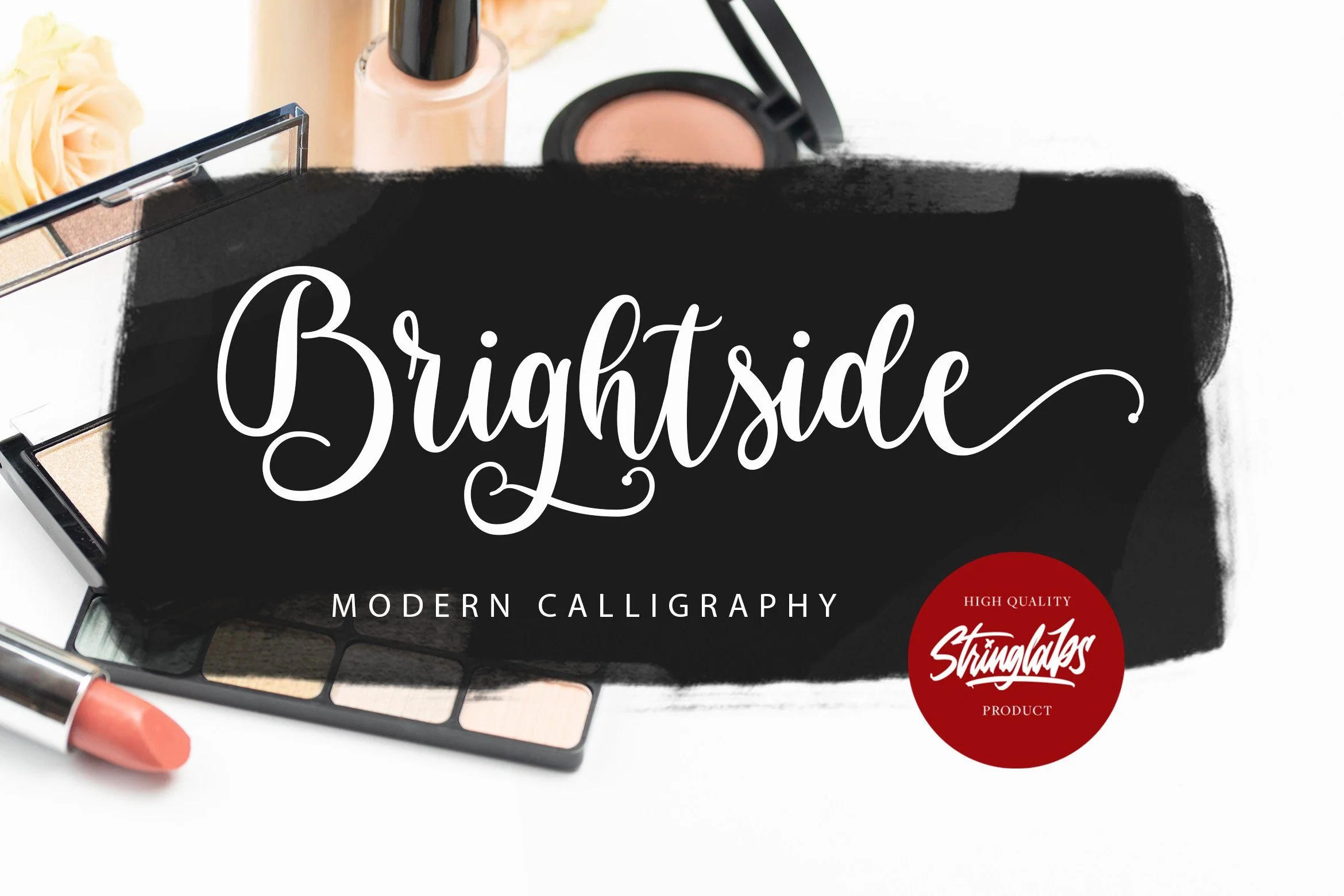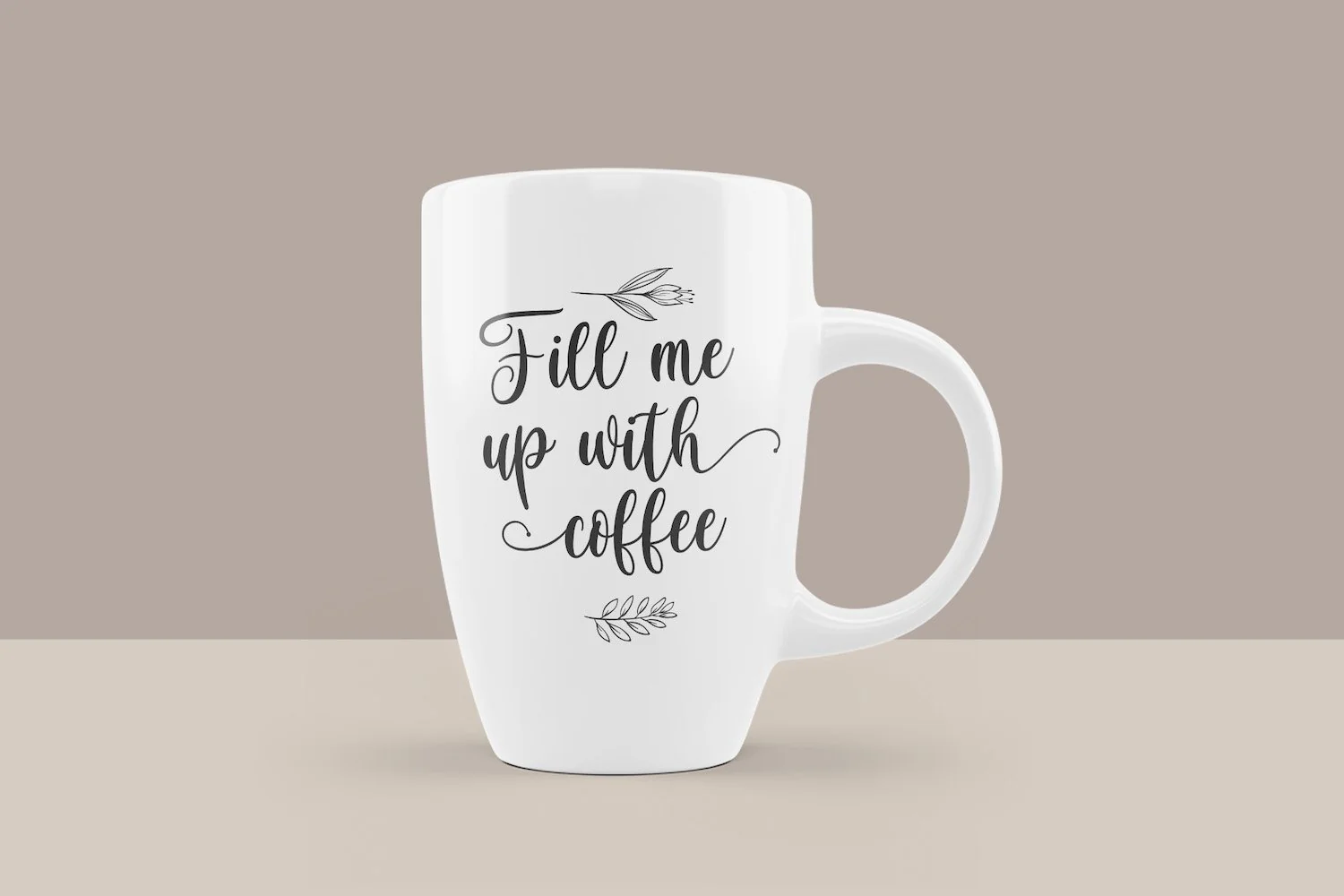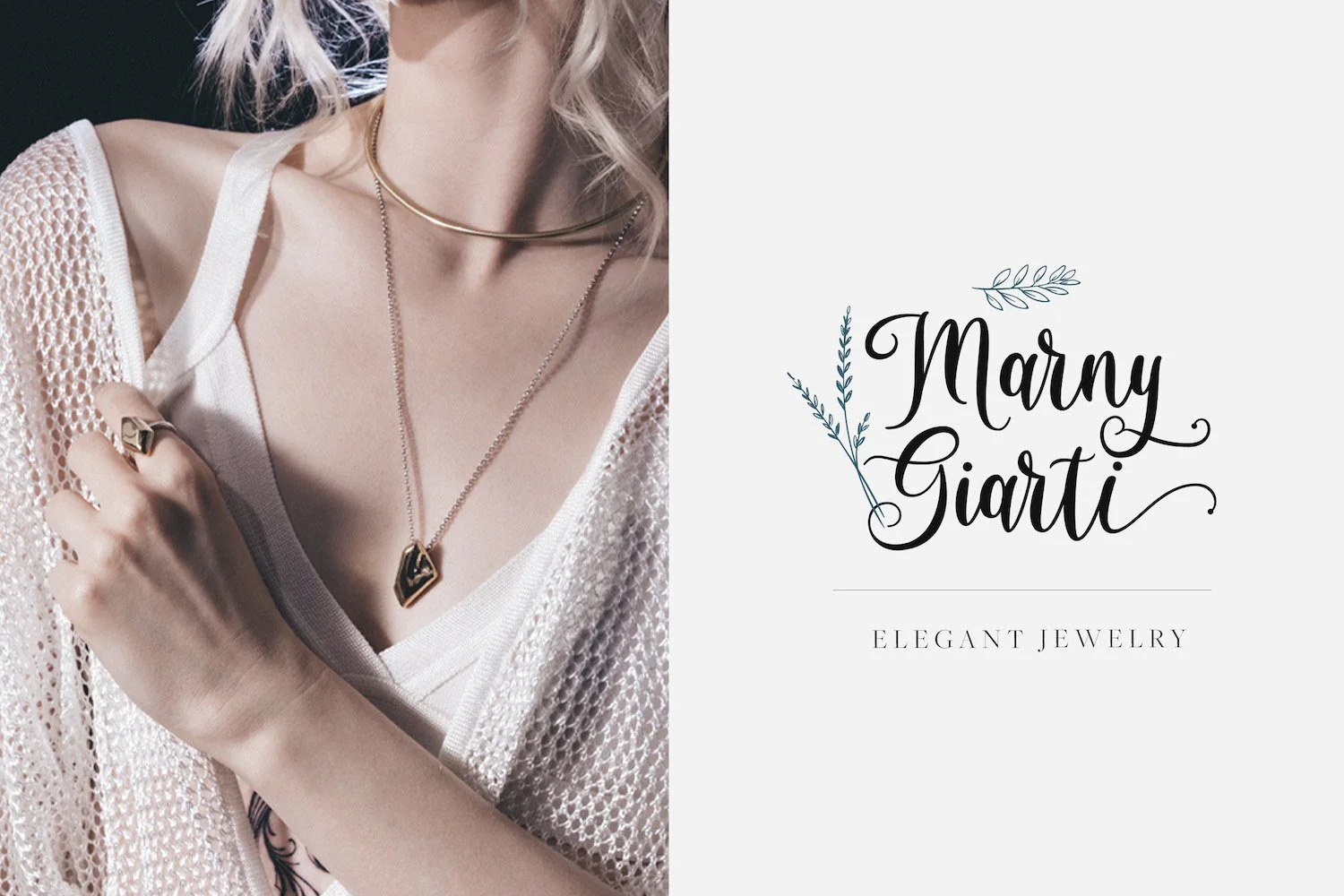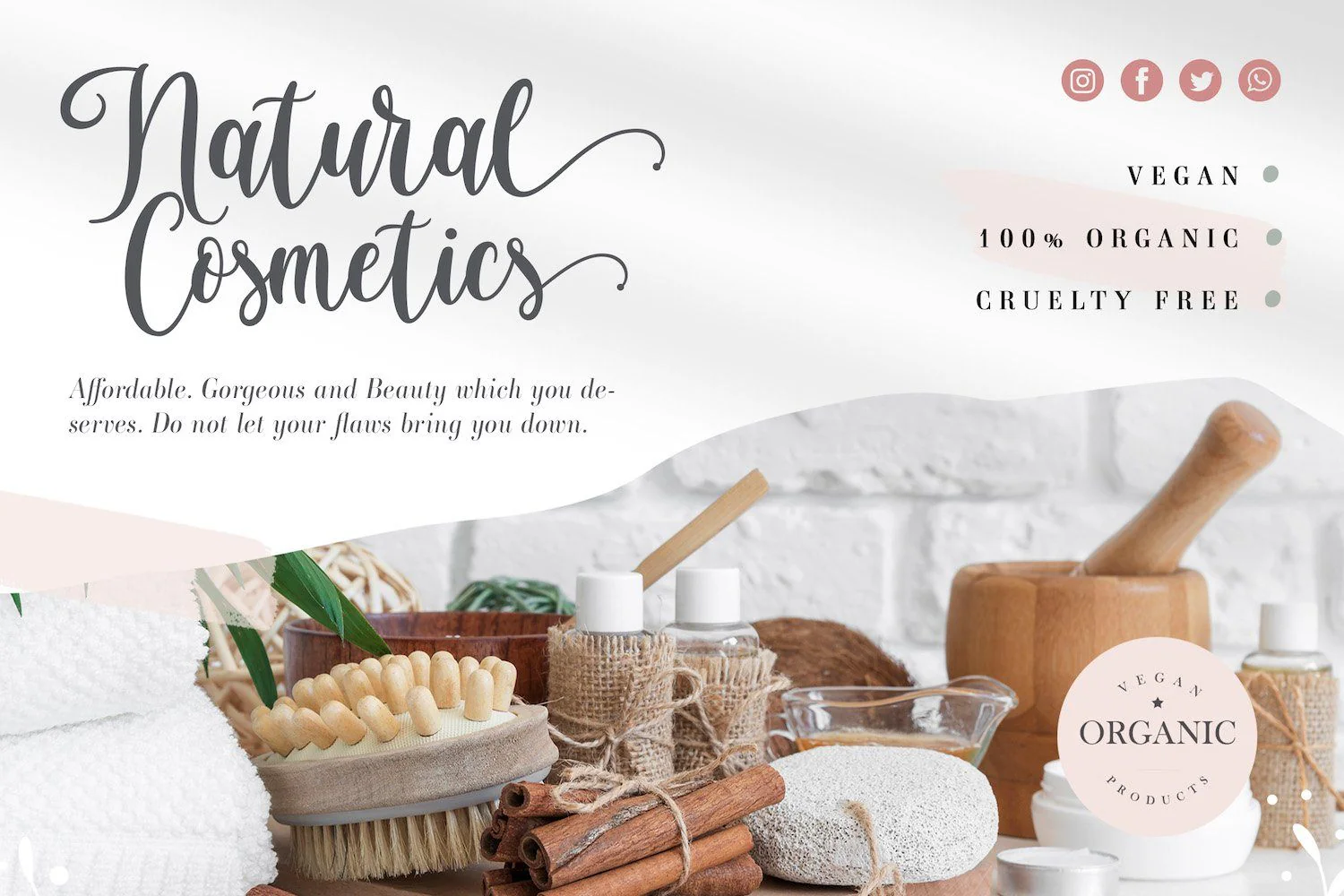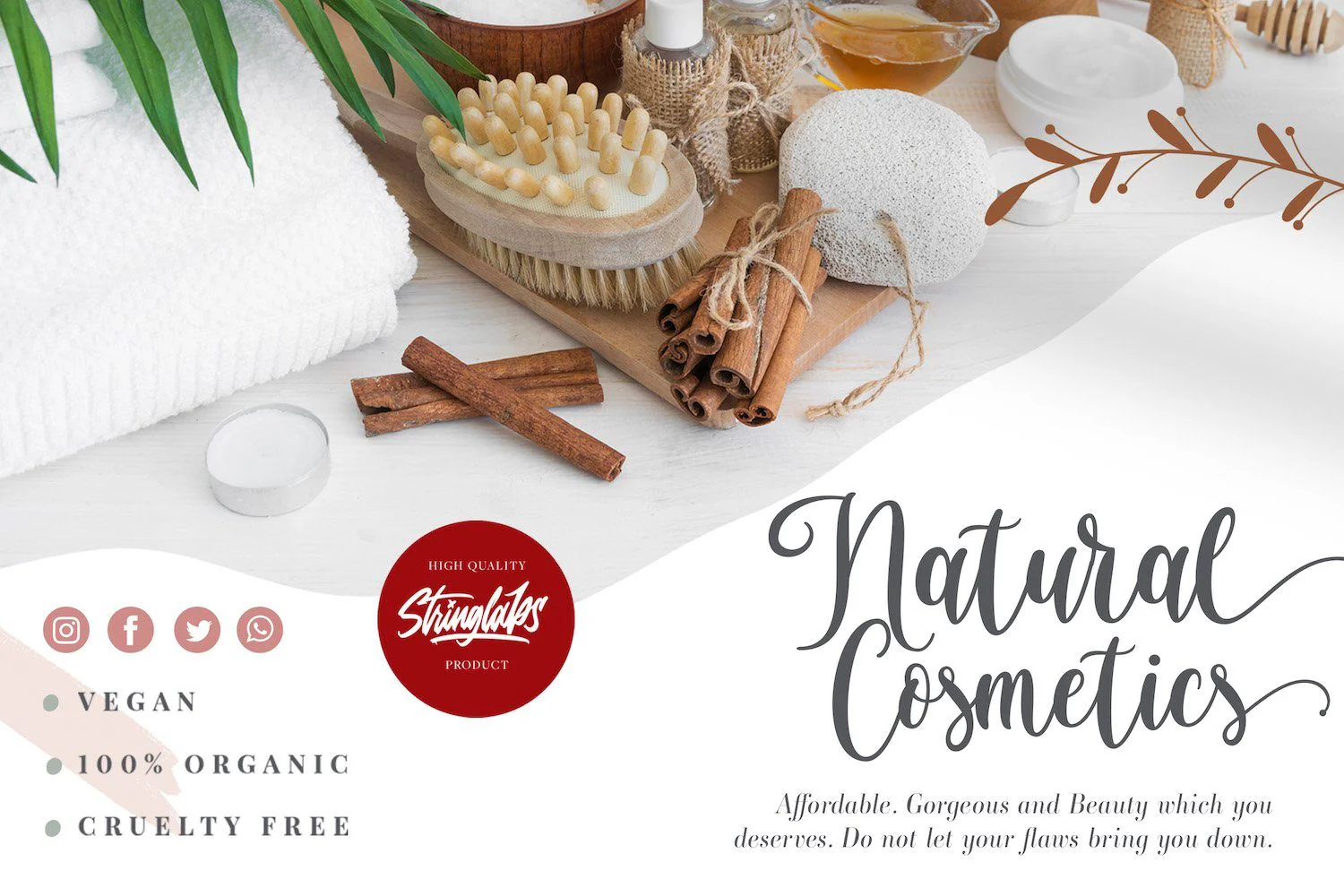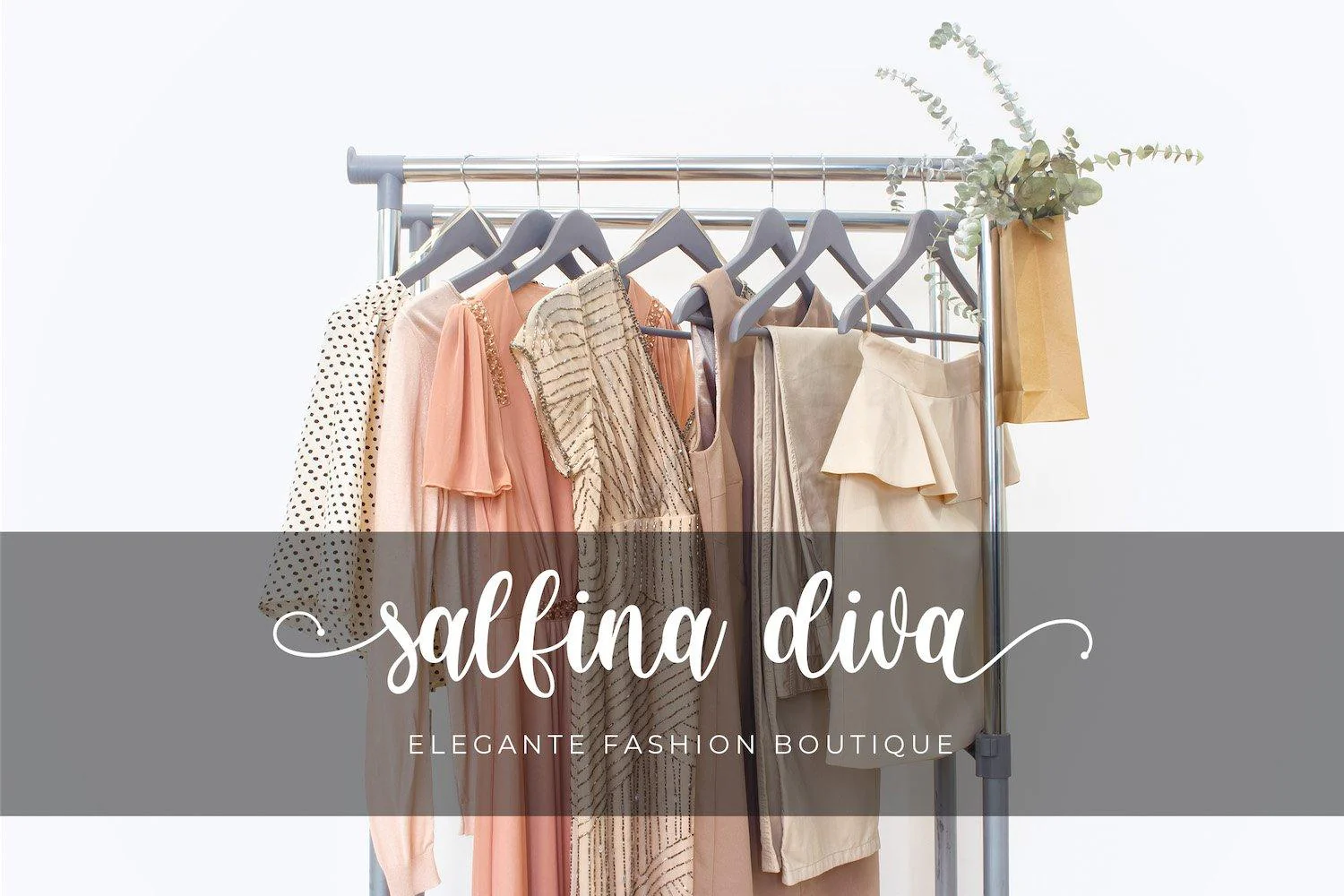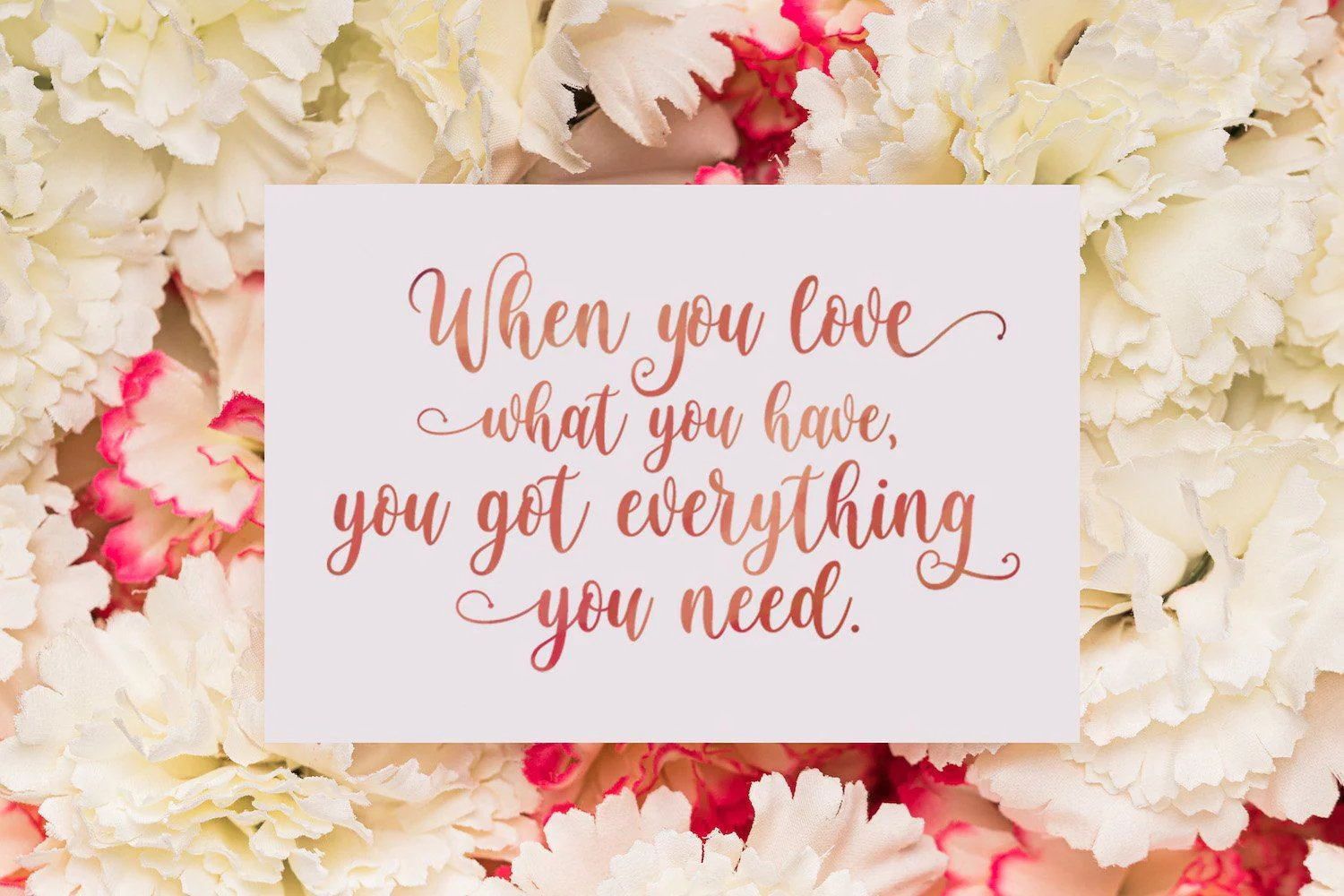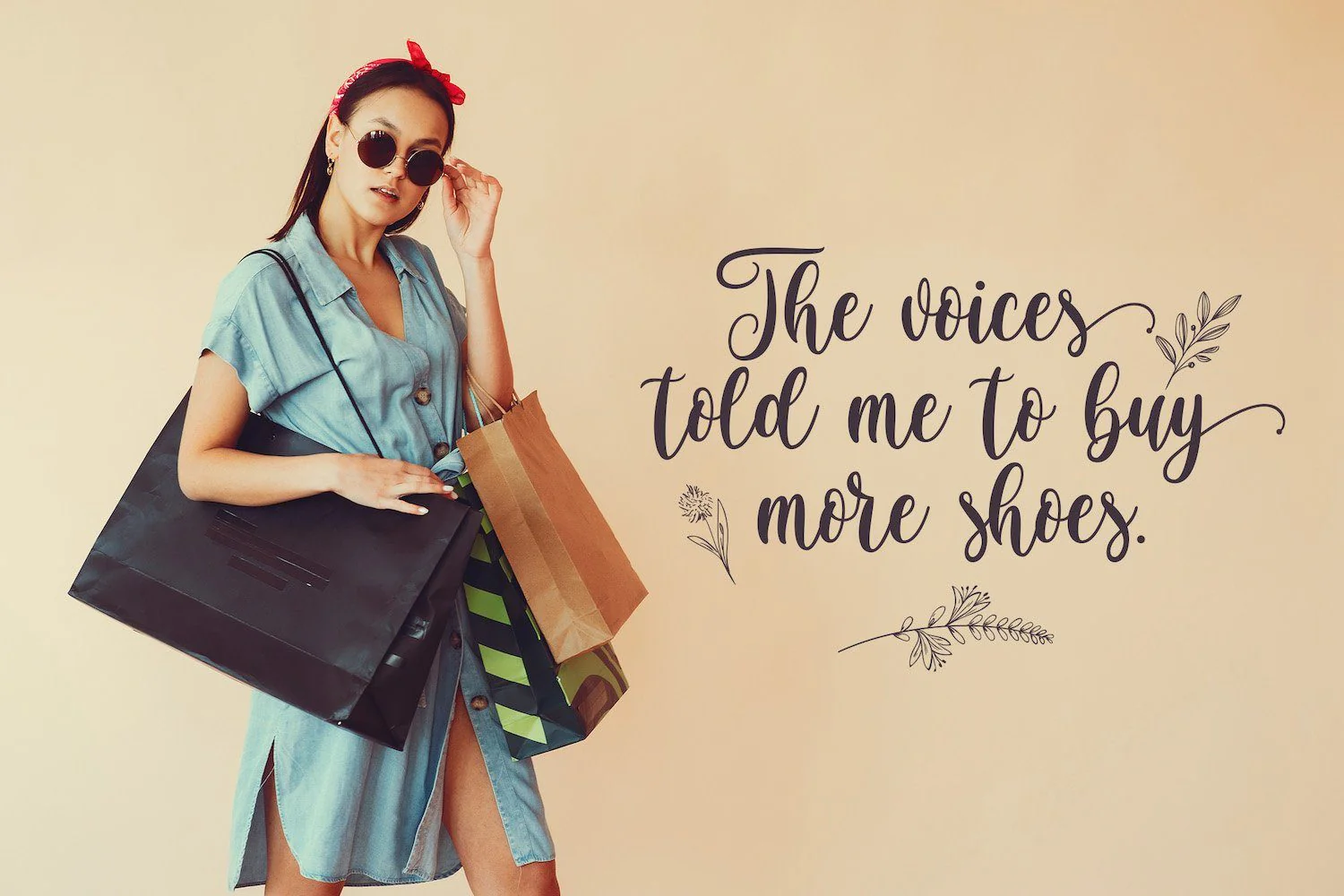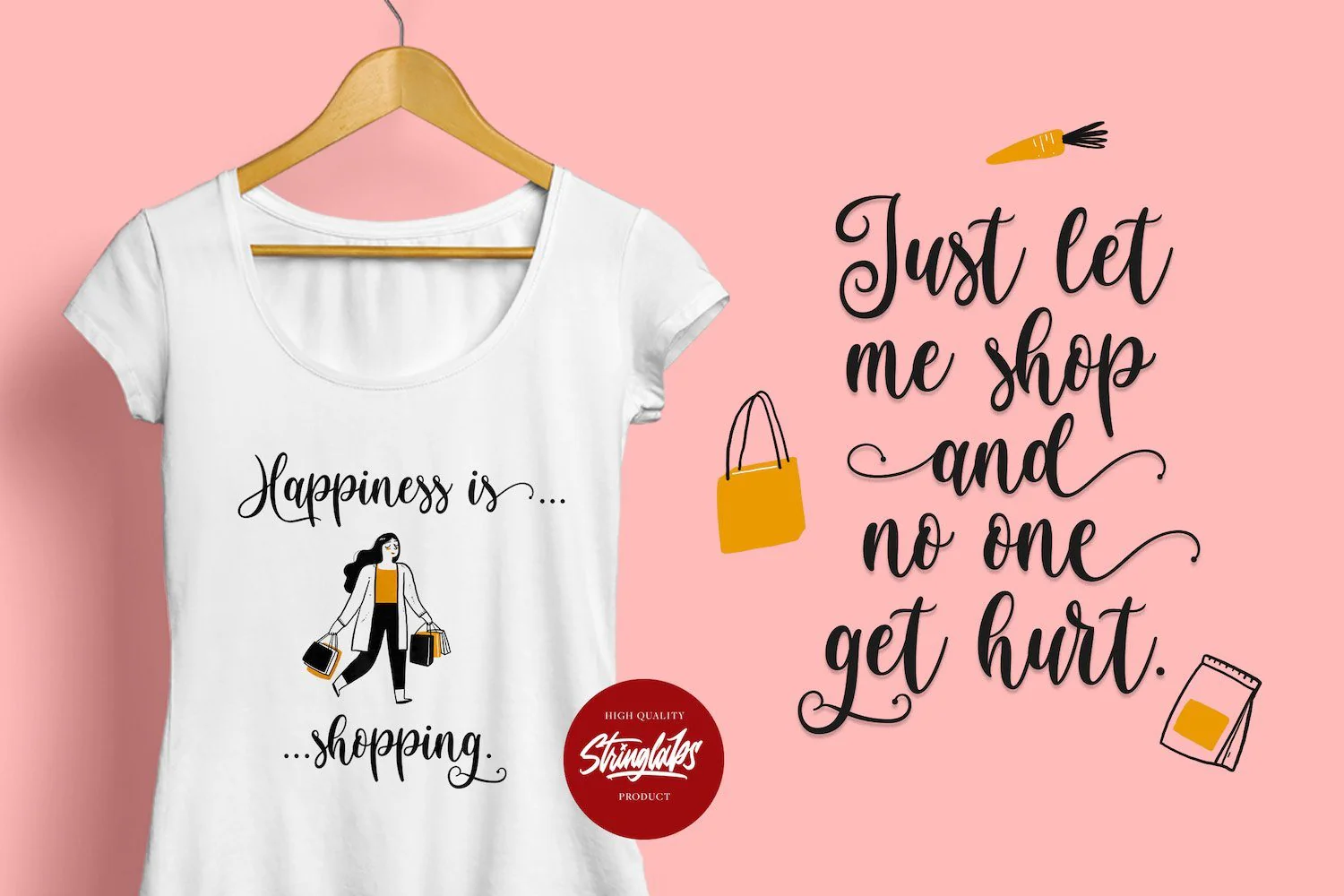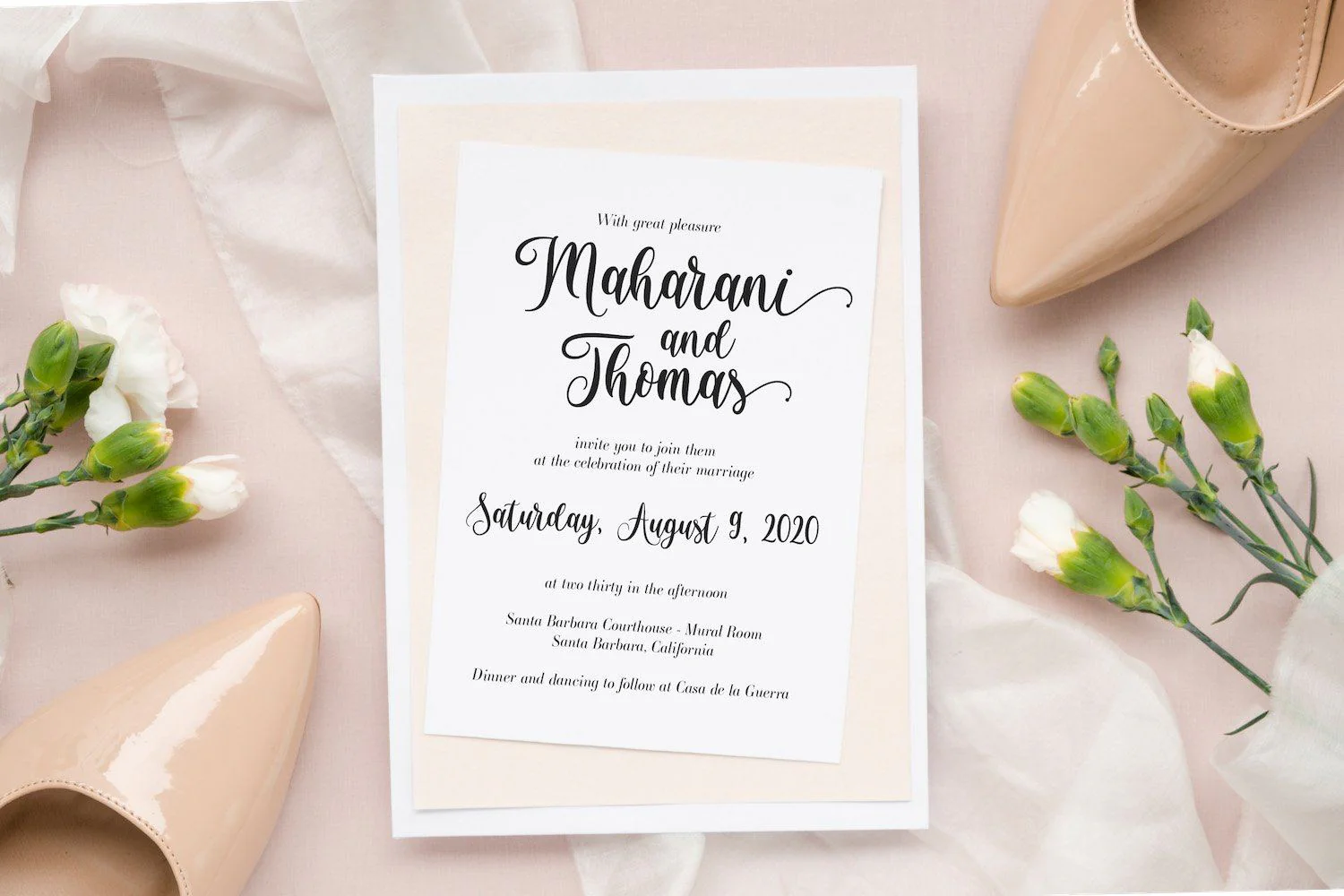
Brightside - Modern Calligraphy Font
Introducing Brightside - Modern Calligraphy Font
BBrightside is a beautiful and modern handwritten font. It features gorgeous swashes and ligatures that make this script incredibly versatile. Whether you’re looking for fonts for Instagram or calligraphy scripts for DIY projects, Brightside
will turn any creative idea into a true piece of art! It is PUA encoded which means you can access all of the glyphs and swashes with ease!